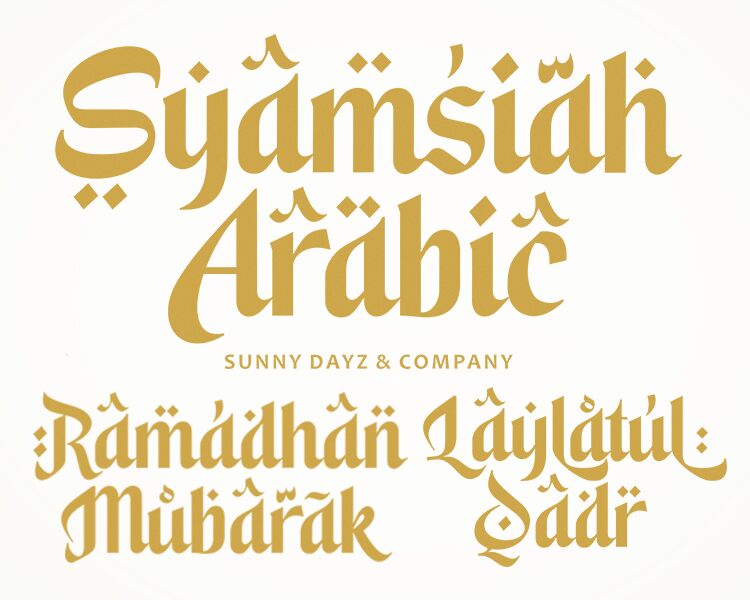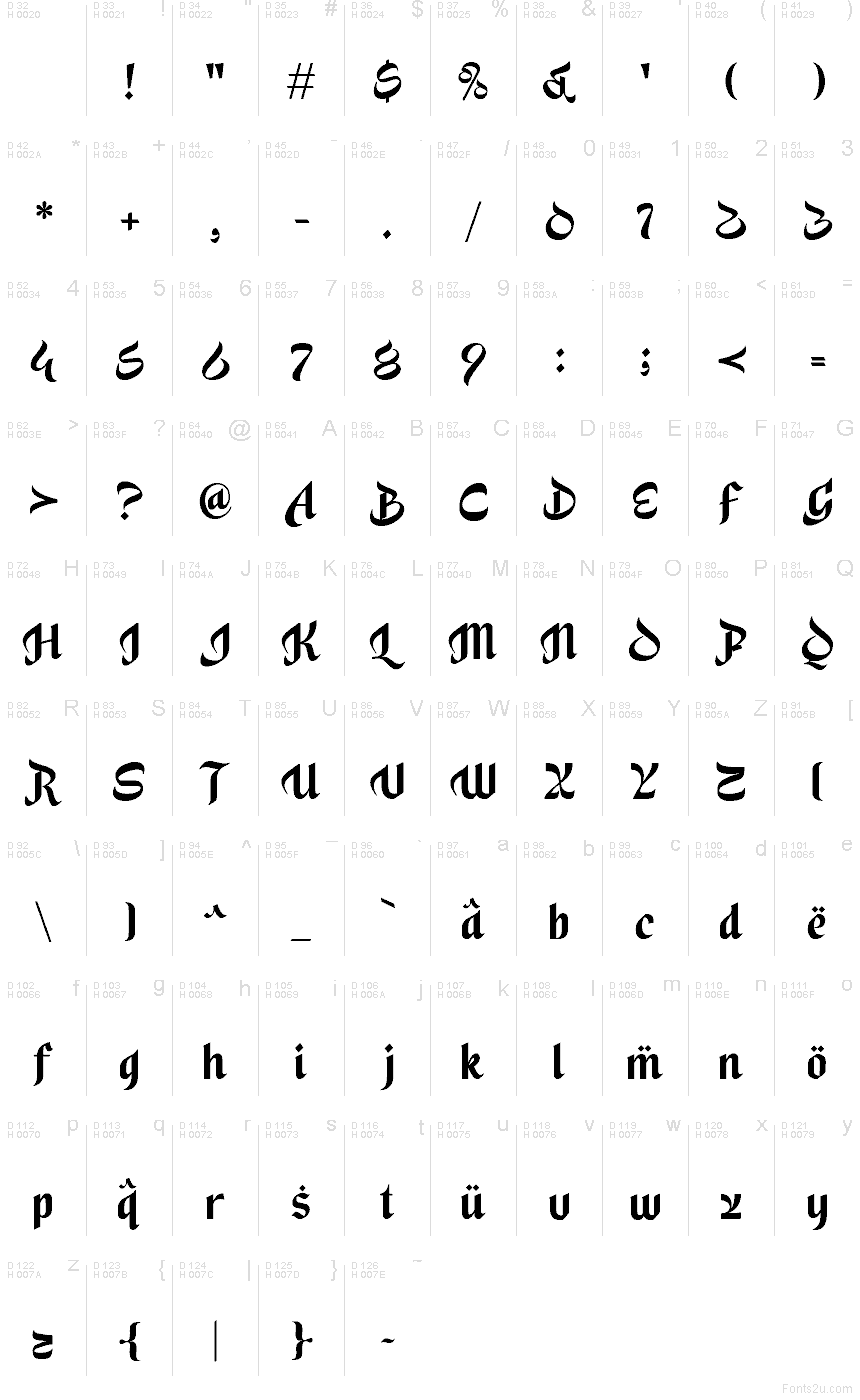
Syamsiah Arabic
Syamsiah Arabic font by Four Lines is a free faux-Arabic decorative font that wraps Latin letters in sweeping, ink-heavy curves and hooked strokes. The rhythm feels hand-lettered and slightly theatrical, with tight spacing and bold, shadowy forms that instantly suggest spice markets, lantern light, and carved wood signs. It carries a strong, textured presence, so a little goes a long way—use it big enough that those sculpted curves and dots can really breathe.
Using Syamsiah Arabic, you can brand Middle Eastern restaurants, create packaging for teas or spices, design themed posters, headlines for travel blogs, event invitations, menus, and atmospheric signage. This free font shines when you want to signal an “Arabic-inspired” mood at a glance without learning a new script. For a balanced layout, pair Syamsiah Arabic with a clean geometric sans serif for body text and supporting details.